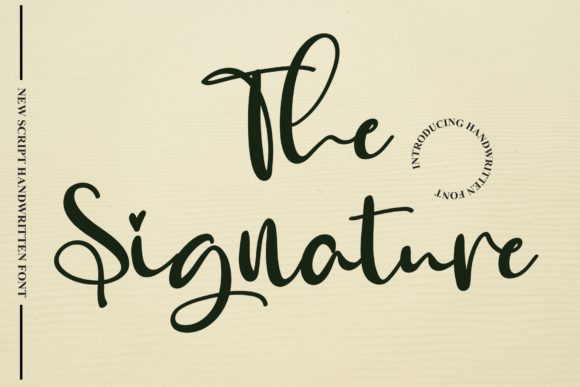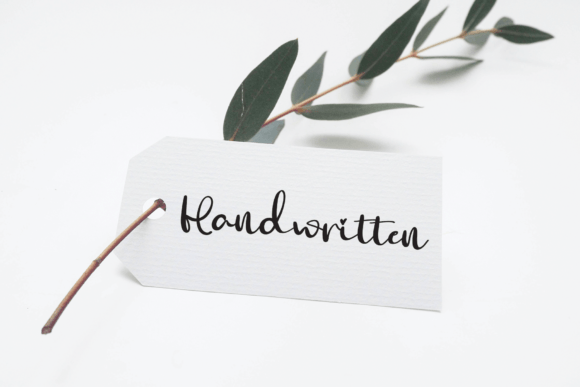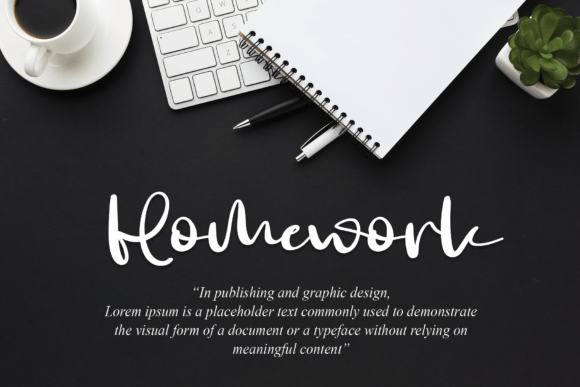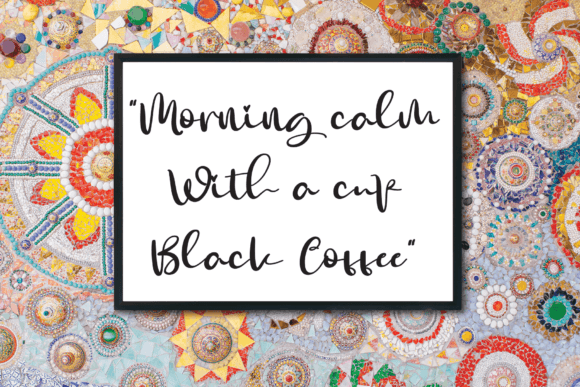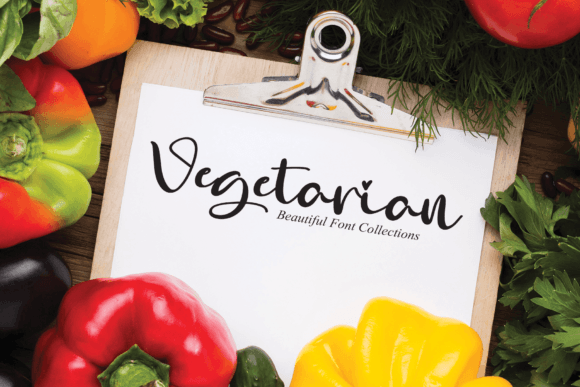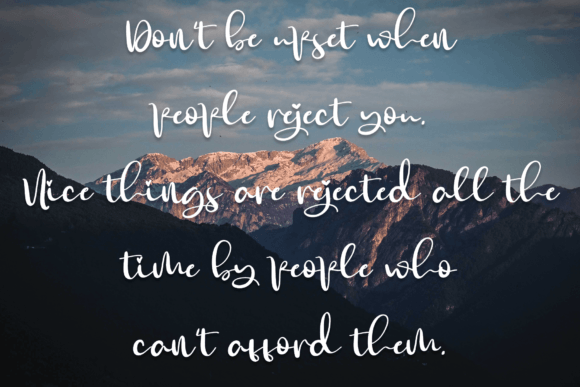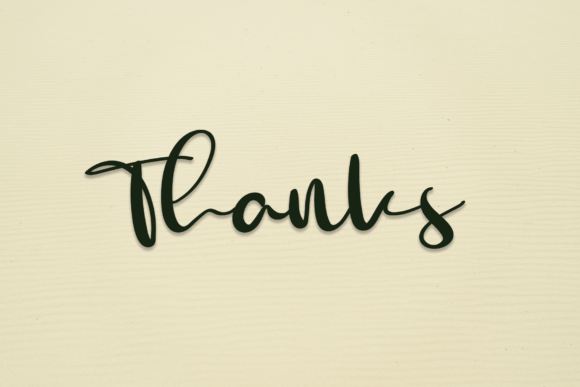
The Signature Font
About The Signature Font
**The Signature: A Stylish Font for Elegant Projects**
Discover the latest style of letters with The Signature, a font that brings a touch of sophistication to your creative projects. Whether you’re designing wall displays, wedding invitations, social media posts, logos, advertisements, product packaging, labels, photography, watermarks, invitations, stationery, or any project that demands a handwritten taste, The Signature is the perfect choice for adding an elegant and stylish flair.
**Perfect for Wall Displays and Wedding Invitations:**
The Signature is tailor-made for wall displays, offering a stylish and visually appealing choice for showcasing messages or quotes. Additionally, its elegant style makes it a perfect fit for crafting wedding invitations that exude sophistication and charm.
**Ideal for Social Media Posts and Logos:**
Bring a touch of class to your social media posts and logos with The Signature. Its stylish letters add a personalized and elegant feel, making it a versatile choice for creating a cohesive brand identity or making an impact on your online presence.
**Versatile Application in Advertisements and Product Packaging:**
Whether you’re working on advertisements or product packaging, The Signature offers versatility. Its stylish and handwritten aesthetic becomes a valuable asset in conveying a sense of authenticity and uniqueness in marketing materials.
**Enhancing Product Designs and Labels:**
The Signature adds a touch of elegance to product designs, making your products stand out. It’s well-suited for labels that require a sophisticated touch, ensuring that your branding communicates quality and style.
**Adding a Personalized Touch to Photography and Watermarks:**
When it comes to photography, The Signature becomes a tool for adding a personalized touch to images. Whether you’re watermarking your photos or creating captions, this font complements the visual narrative with its elegant script.
**Elevating Invitations and Stationery:**
Craft invitations and stationery that make a lasting impression with The Signature. Its handwritten taste adds warmth and personality, creating an inviting and refined atmosphere for special occasions and correspondence.
**Conclusion: The Signature—Stylish and Elegant for All Your Projects**
In conclusion, The Signature is the font of choice when you seek a stylish and elegant touch for your projects. Its latest style letters are crafted to enhance a wide range of creative endeavors, from invitations and stationery to social media posts, logos, and product designs. Elevate your projects with the sophistication of The Signature, bringing a handwritten taste that adds a touch of timeless elegance to every aspect of your design work.